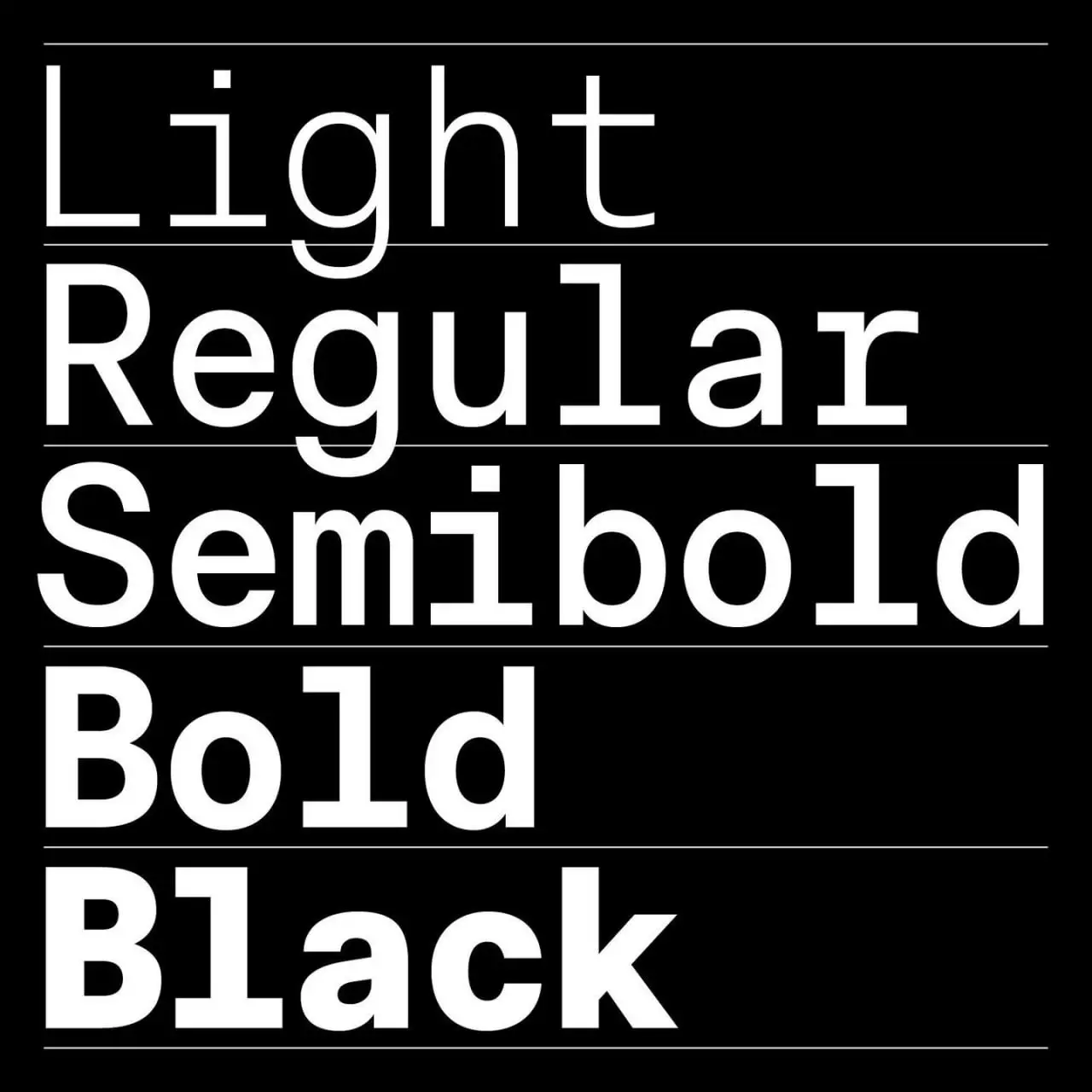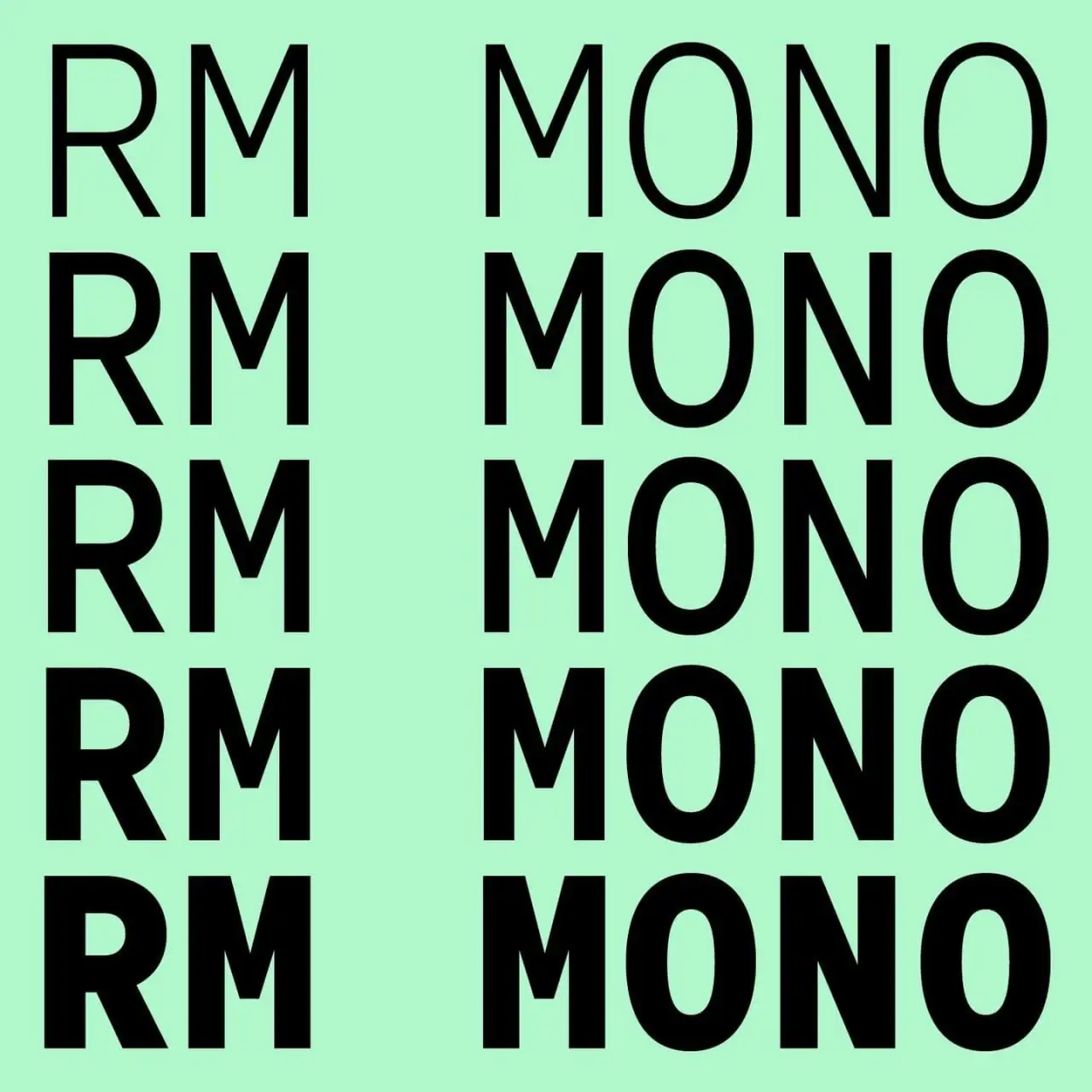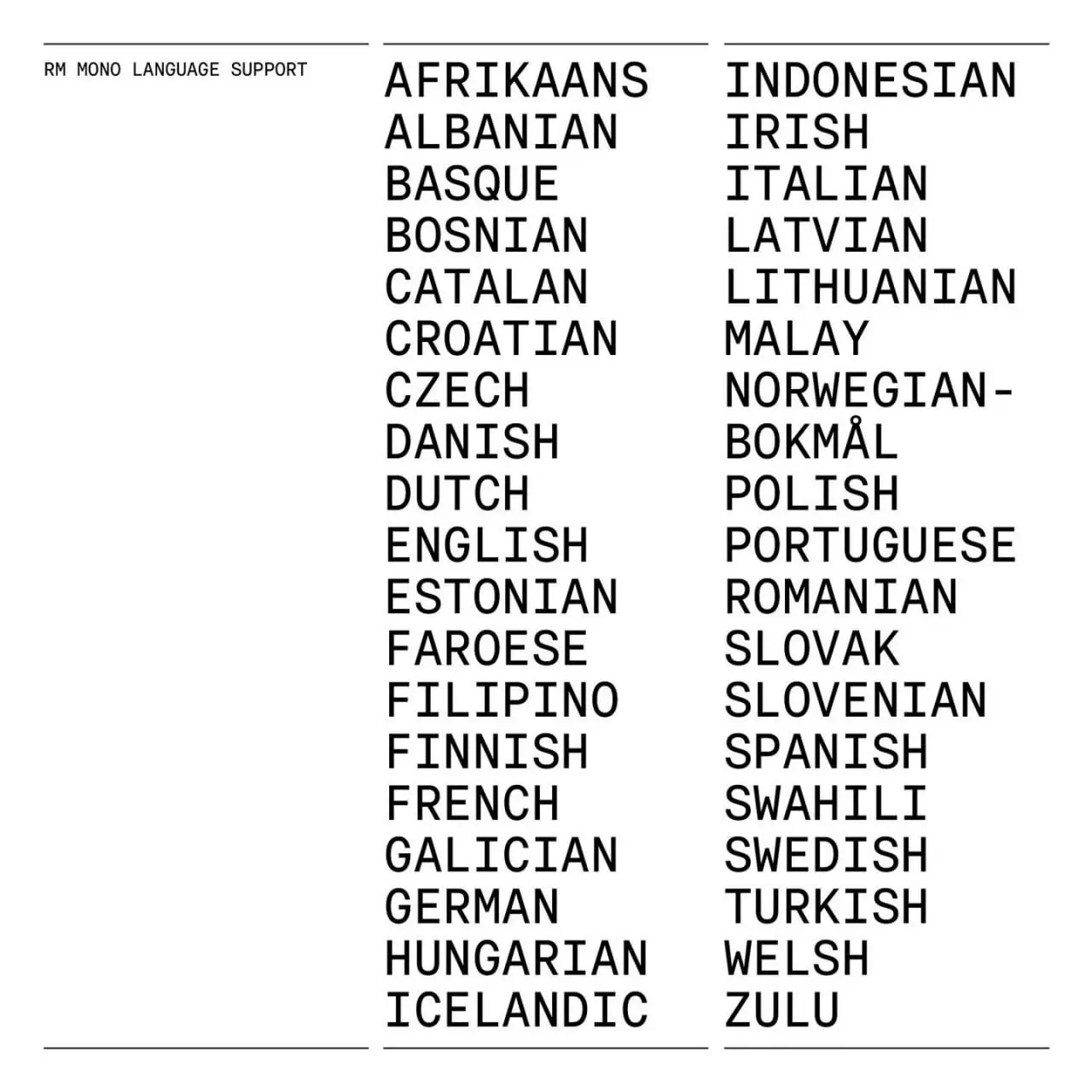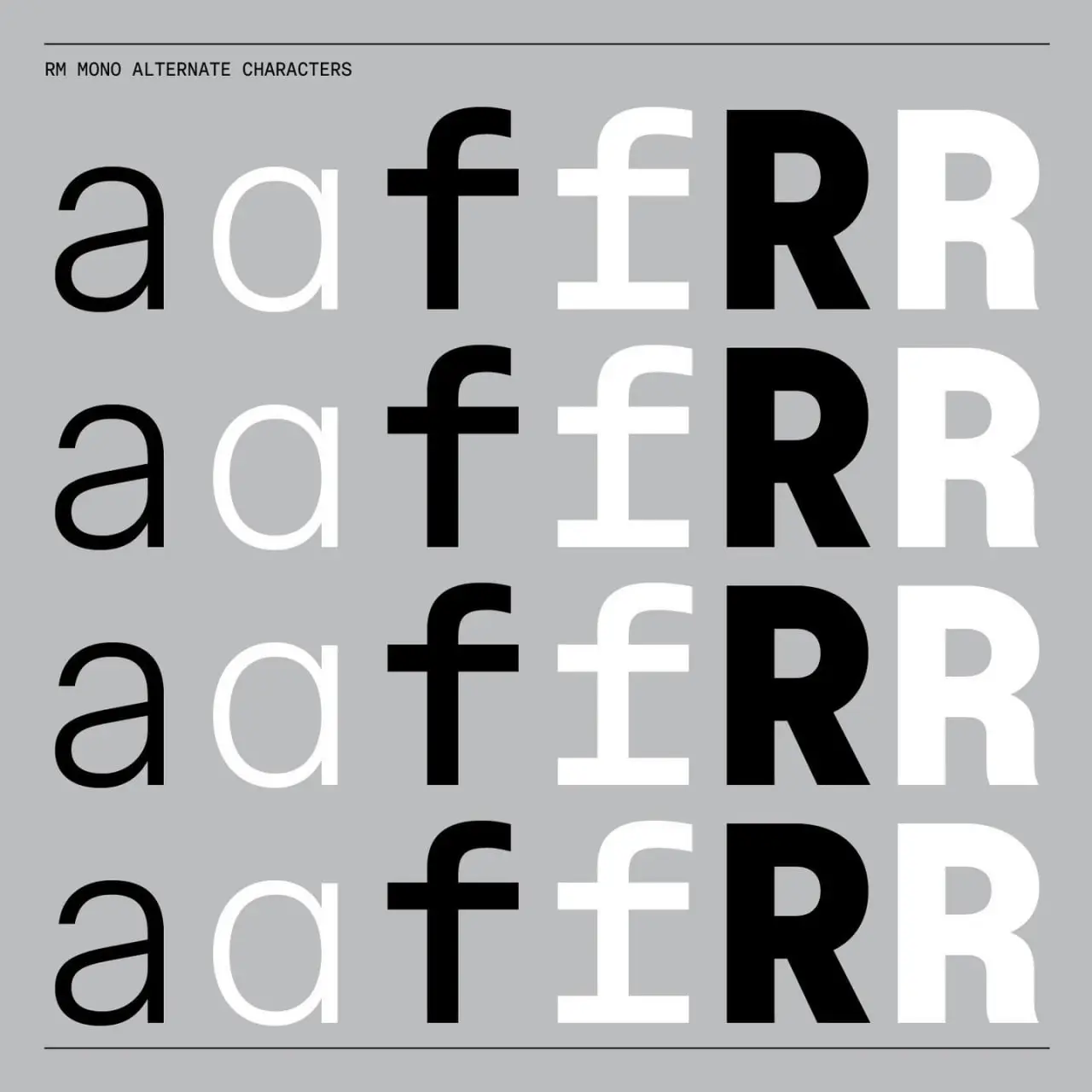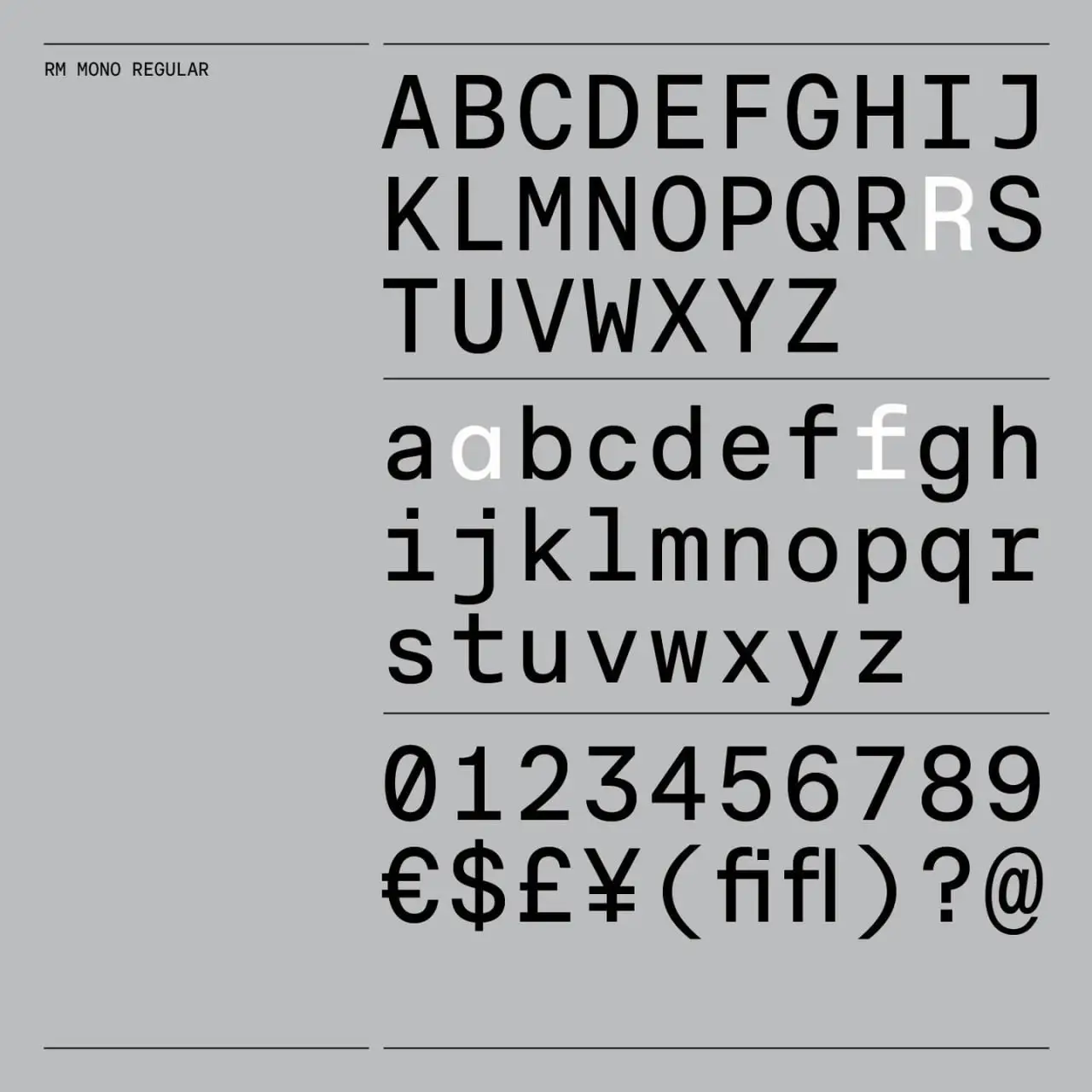
Rm Mono Font By Mark Bloom
Introducing the Rm Mono Font by Mark Bloom, a versatile typeface designed for clarity and readability. This monospaced font is perfect for a variety of applications, including coding, branding, and print design.
• Monospaced design for uniform character spacing
• Multiple weights for diverse usage
• Clean and modern aesthetic
Ideal for web and print projects, including user interfaces, logos, and technical documentation. Use Rm Mono Font to achieve a professional and polished look in your designs.